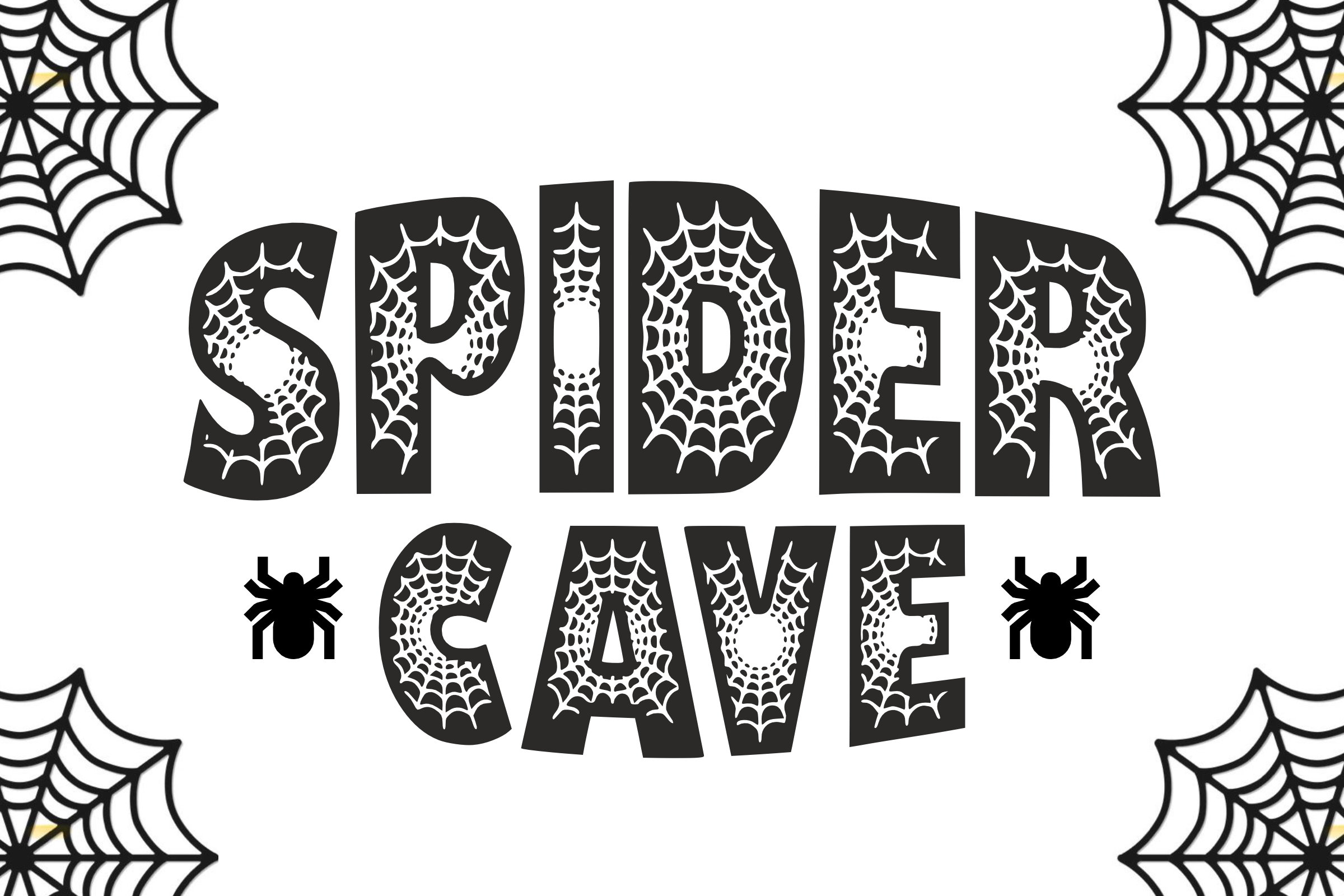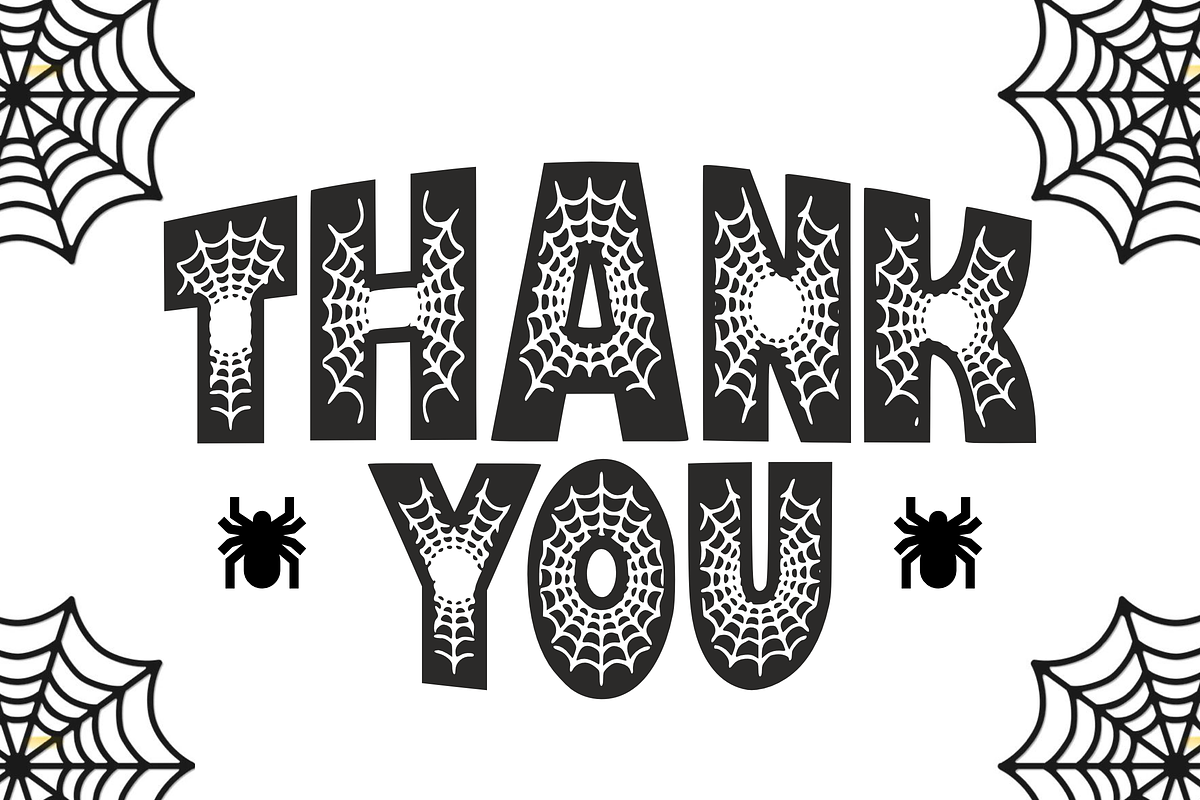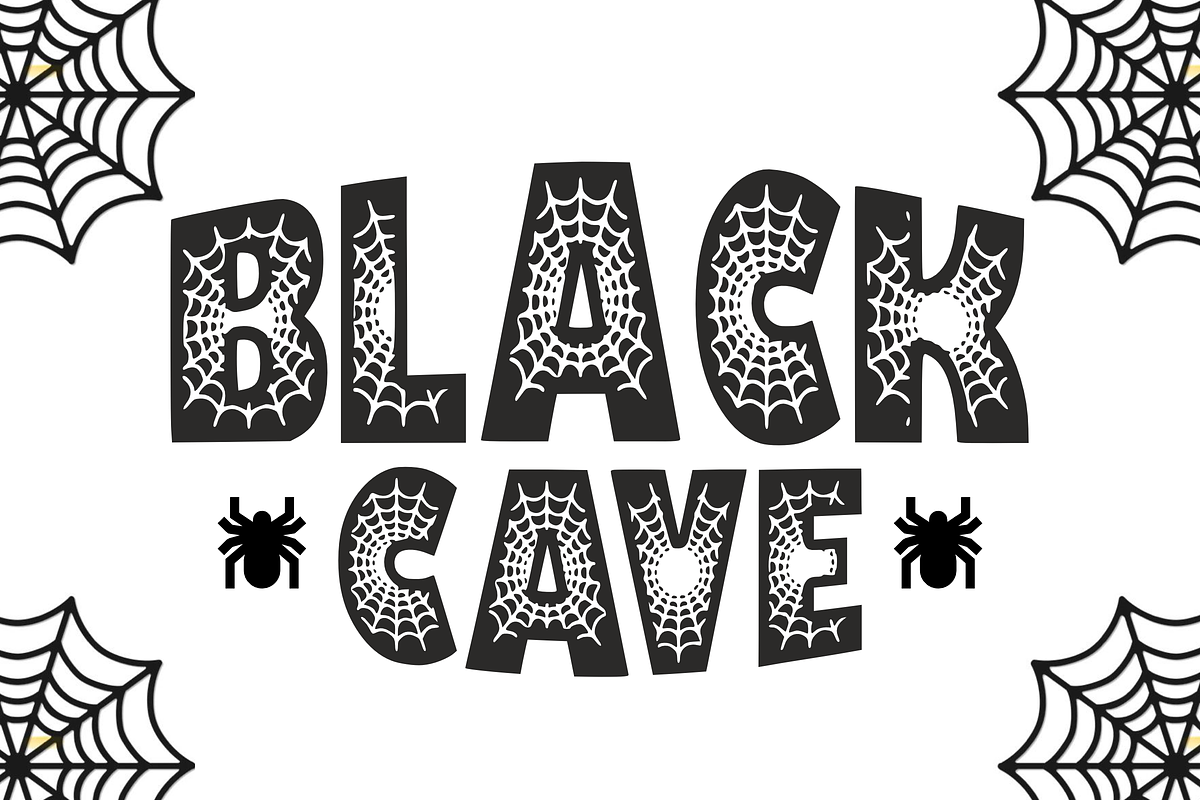
Spider Cave - Cartoon Font Types
Unearth the eerie allure of “Spider Cave”, a hauntingly distinctive font encased in gossamer threads of cobweb. Each character seizes attention, cloaked in uniquely spun webbing, effortlessly identifiable. Ideal for injecting a touch of the uncanny into sublimation designs. Manifest your creativity on t-shirts, mugs, tote bags and more with Spider Cave. It’s an animation sensation, a comic title titan; an opportunity to infuse the ordinary with a hint of the extraordinary. With your continued support and engagement, we remain invigorated to deliver creative, novel, and standout fonts. We appreciate your patronage. Delve into the depths of your imagination with Spider Cave.